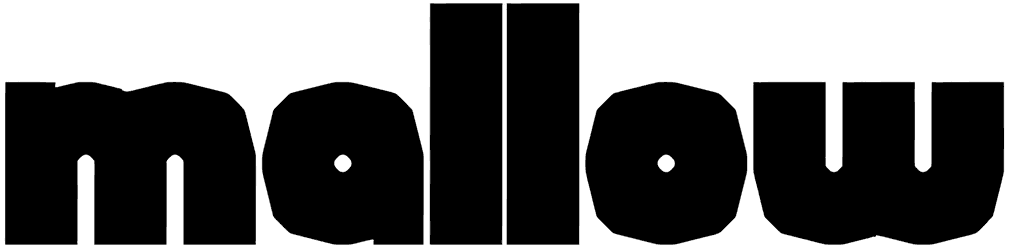
Mallow Font
Don’t you want to feel the presence of playfulness in your lettering? Then you shouldn’t leave here before downloading Mallow. Stone fonts usually come in handy that way. Just so you know, the entire letter map is made of lowercase, with all the capitals absent.
But don’t worry about your text losing its touch because of this shortcoming. This bold font is easy enough to notice, so you can change it to posters for kids’ parties, gaming graphics, or something else.